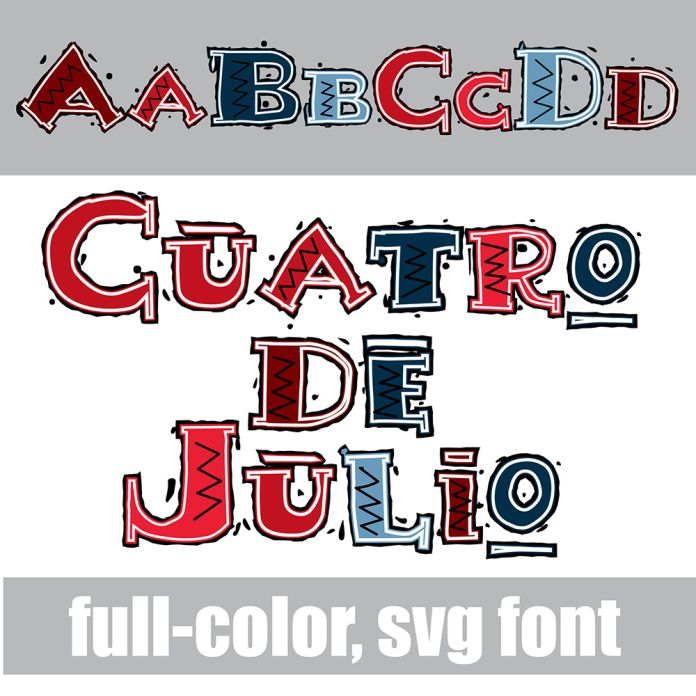
This full-color font features a fun, fiesta-style font in red, white, and blue. There is an alt case w/ additional colors you can access through your system or Silhouette's glyph map. This font works best for titles, displays, posters and more. Please note color fonts will show as black in non compatible programs. This font type is compatible with Silhouette Studio.